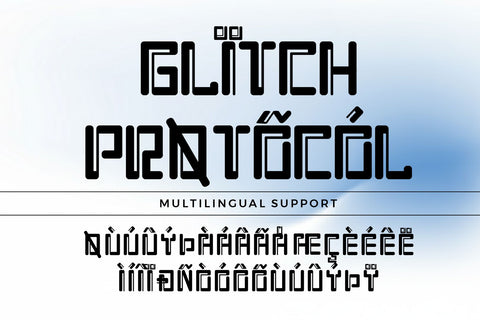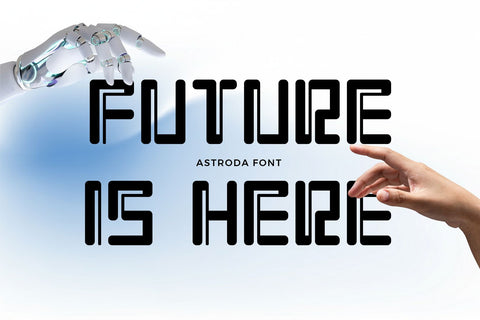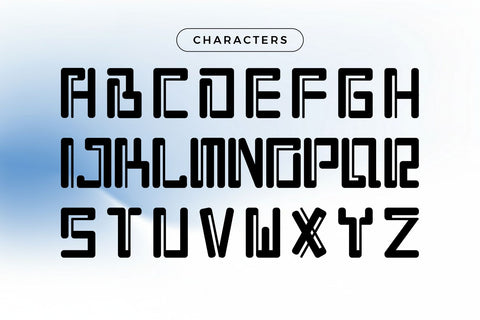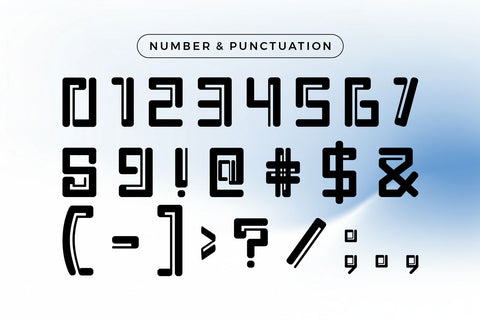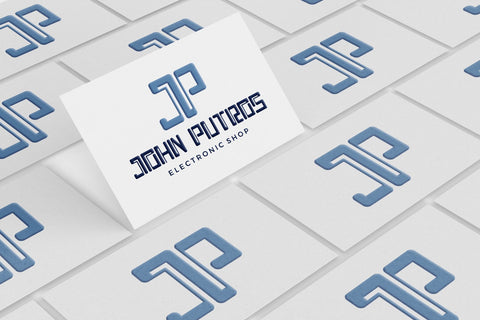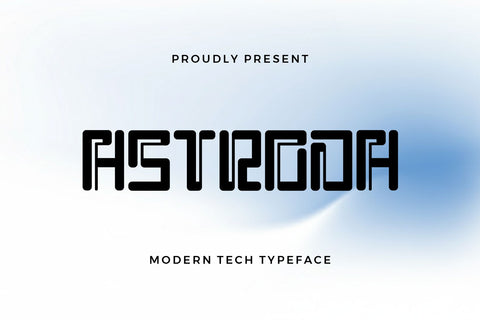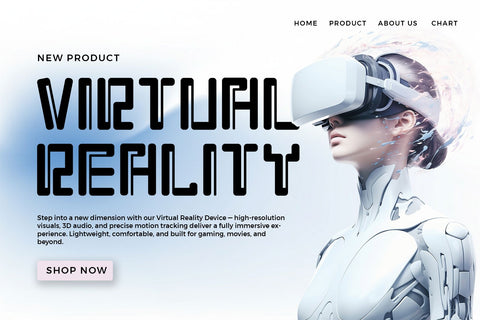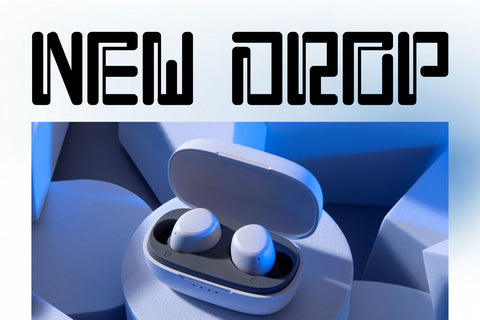
Astroda — the geometry of the future, engineered for visionaries Typeface
Astroda is a modern tech geometric font designed for the future of digital creativity. Its clean structure and bold modular forms create a seamless balance between innovation and precision. With rounded corners and sharp internal cuts, Astroda represents the intersection of technology, architecture, and minimalism — perfect for projects that demand a sleek, forward-looking identity.
Inspired by futuristic interfaces, cyber technology, and digital motion, every letter in Astroda feels engineered with purpose. Its consistent rhythm and mechanical flow give it a refined yet distinctive look, suitable for both text and display use. Whether you’re working on a tech brand, sci-fi visuals, or experimental typography, Astroda brings modern sophistication to every design.
Astroda’s geometric construction gives it a sense of stability and power, while its rounded lines keep it approachable and stylish. This contrast makes it ideal for logos, branding systems, UI design, or editorial layouts where clarity and modernity are key.
- Uppercase Letters with strong modular balance
- Numbers and Punctuation for complete usability
- Multilingual Support for international creators
- Stylistic Alternates for advanced design variations
- Optimized for both print and screen
Perfect For:
- Futuristic branding and digital logos
- Tech company identities
- Sci-fi covers and user interfaces
- App design, architecture, and modern displays
- Minimal posters and conceptual visuals
Why Designers Love Astroda
Astroda delivers a timeless digital aesthetic — clean, confident, and forward-thinking. Its structured shapes and smooth terminals bring a sense of innovation and professionalism to any project. The futuristic yet minimal concept makes it versatile across technology, fashion, and creative industries.
It’s a typeface that stands for progress — crafted for brands that build the future. From digital art and 3D modeling to software branding, Astroda provides the perfect visual harmony between modernism and creative flair.